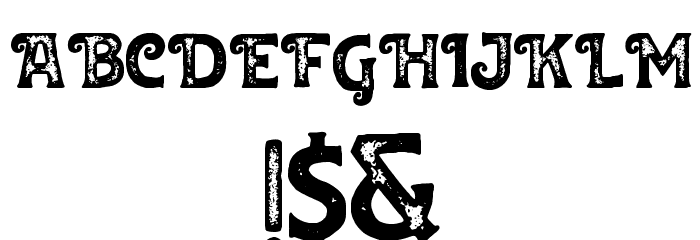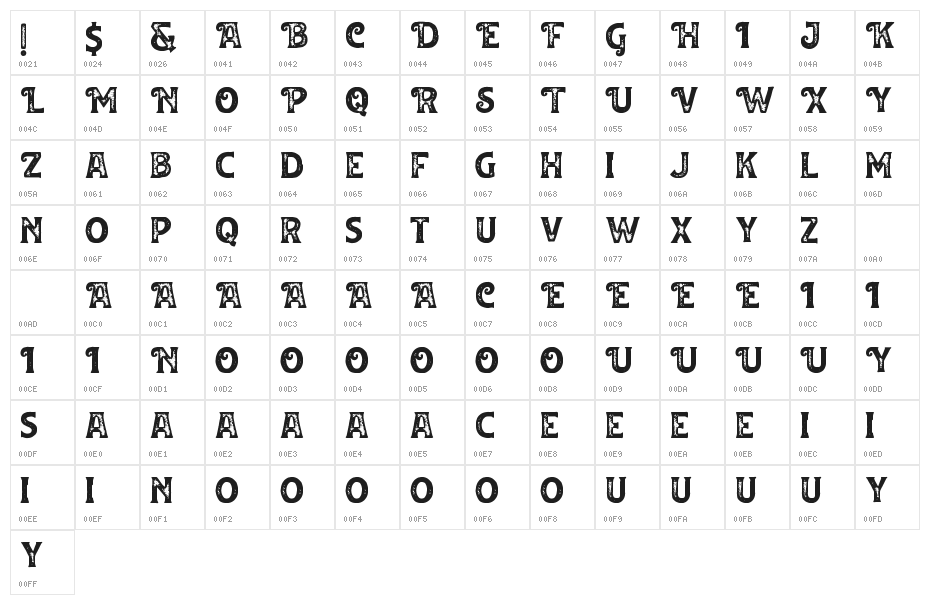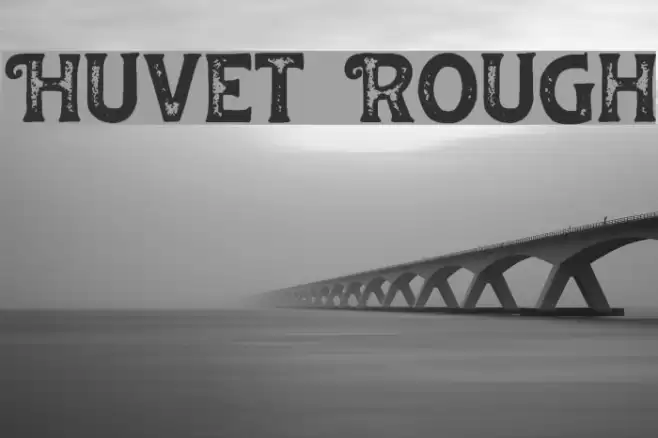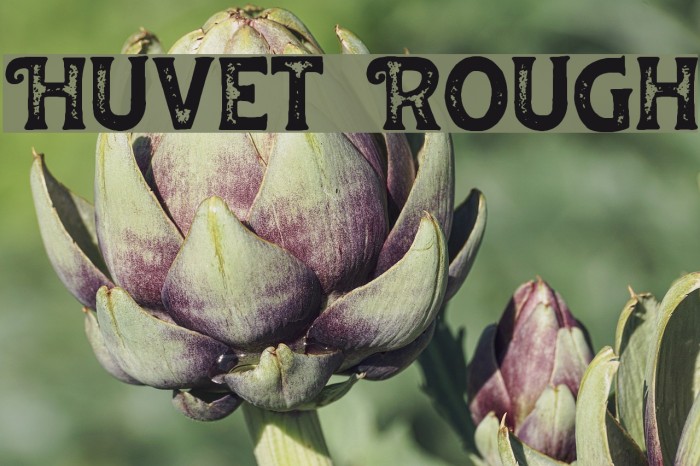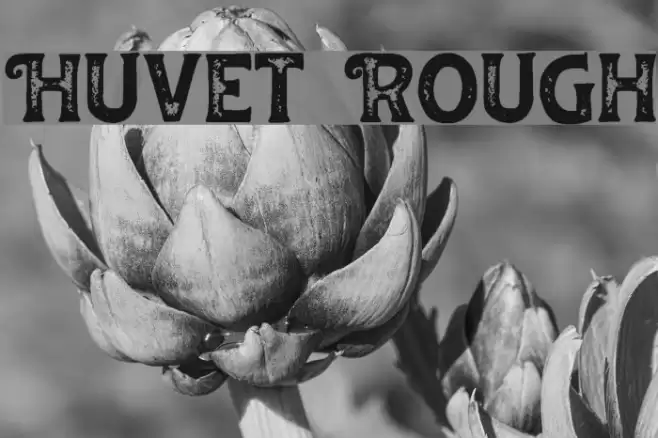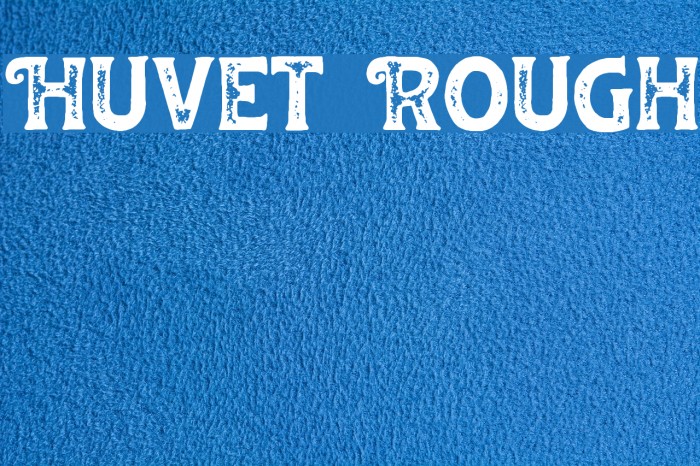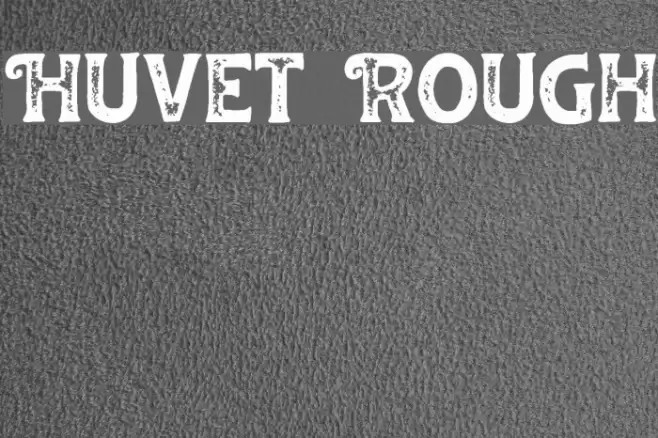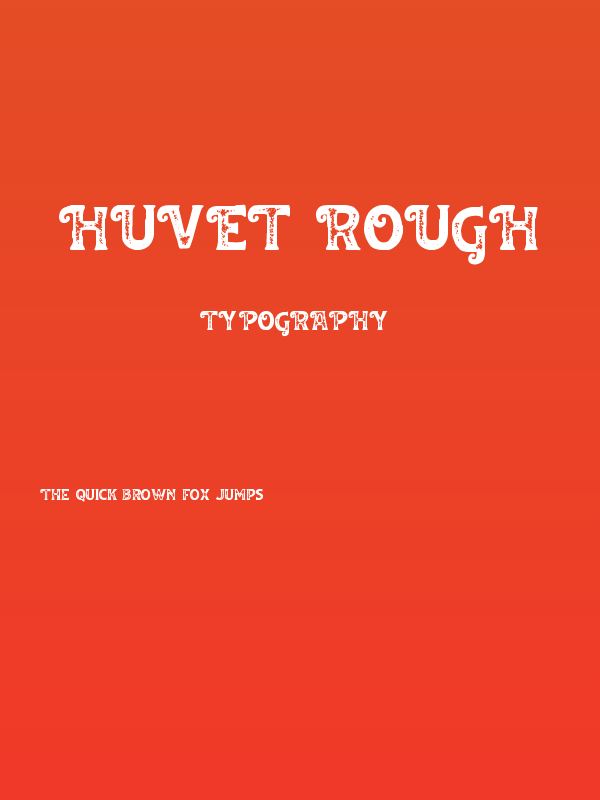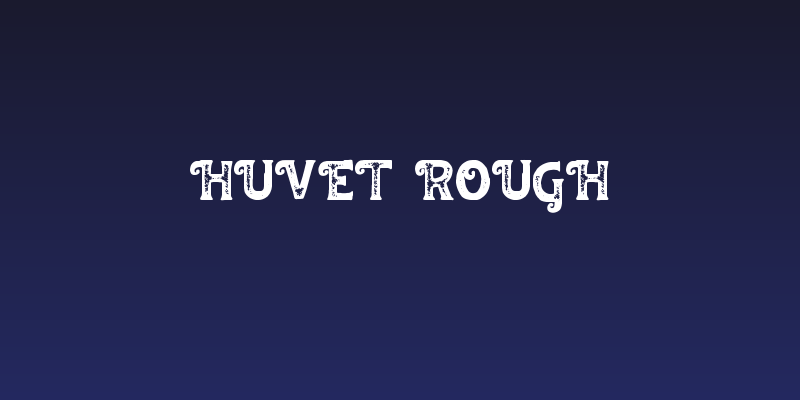
Huvet Rough Font
Huvet Rough Description
This font features a bold and rugged design with a distressed texture that gives it a vintage, worn-out appearance. The characters are bold and have a substantial presence, making them stand out prominently. The rough edges and irregularities in the strokes add a handcrafted feel, reminiscent of old printing techniques or weathered signage. This style is particularly effective in conveying a sense of history or authenticity, making it suitable for projects that aim to evoke nostalgia or a rustic charm.
Nur Cholis Majid
Overall StyleVintage
Proposed ProjectsIdeal for vintage-themed posters, rustic branding, retro packaging, and any design needing a touch of nostalgia.